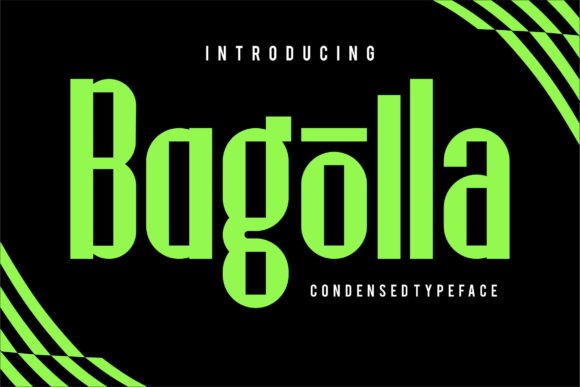
The Ultimate Guide to Bogolla Condensed Font: Elevate Your Designs with Sleek Simplicity
I’ll never forget the time I was working on a project with a tight deadline, and my client requested a clean, modern look that would fit a lot of information into a small space. As I scrolled through my font library, I stumbled upon Bogolla Condensed Font, and it was love at first sight! ✨ The compact and straightforward typeface immediately caught my attention, and I knew I had found the perfect solution. In this article, I’ll share my experience with Bogolla Condensed, its features, and how to make the most of it in your designs.
An Honest Review of Bogolla Condensed Font
• ✅ Clean and Modern Look: Bogolla Condensed Font has a sleek, modern aesthetic that instantly elevates your designs.
• ✅ Space-Saving: Its condensed style makes it perfect for projects where space is limited, such as brochures, posters, or infographics.
• ✅ Efficient Typographic Solution: Bogolla Condensed provides a crisp and efficient way to communicate your message, making it ideal for body text or headings.
• ✅ Easy to Read: Despite its condensed style, the font remains highly legible, even at smaller sizes.
While Bogolla Condensed Font is an excellent choice for many projects, there are a few things to keep in mind: 🤔
• ⚠️ Limited Expressiveness: Due to its clean and minimalist design, Bogolla Condensed may not be the best choice for creative or artistic projects that require a more expressive font.
• ⚠️ Not Suitable for Body Text: While it’s legible, Bogolla Condensed is better suited for headings or titles. For body text, you may want to consider a font with a slightly larger x-height.
The Backstory of Bogolla Condensed Font
Bogolla Condensed Font was designed with the goal of creating a clean, efficient, and highly legible typeface for modern designs. Inspired by the simplicity of classic sans-serif fonts, the designer aimed to craft a font that would excel in digital and print applications. 💻
What is Bogolla Condensed Font best used for? Bogolla Condensed Font is ideal for projects where space is limited, such as brochures, posters, infographics, and headings.
Is Bogolla Condensed Font suitable for body text? While it’s legible, Bogolla Condensed is better suited for headings or titles. For body text, consider a font with a slightly larger x-height.